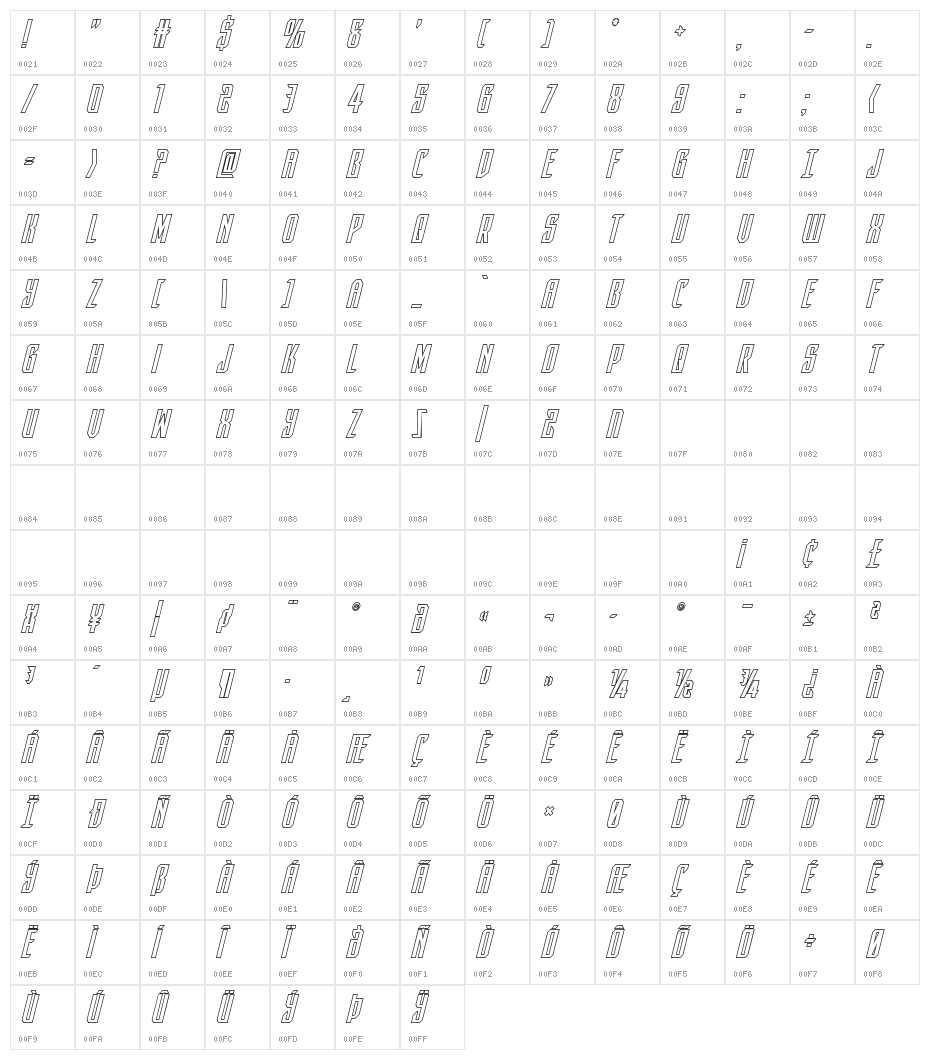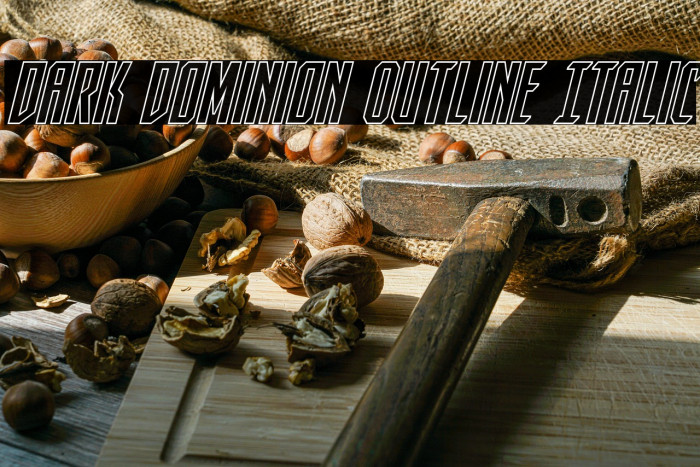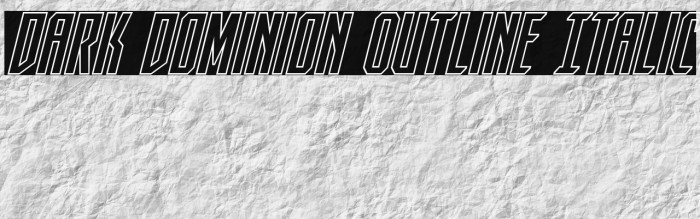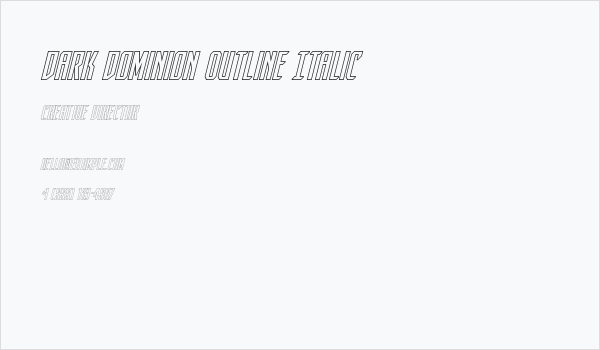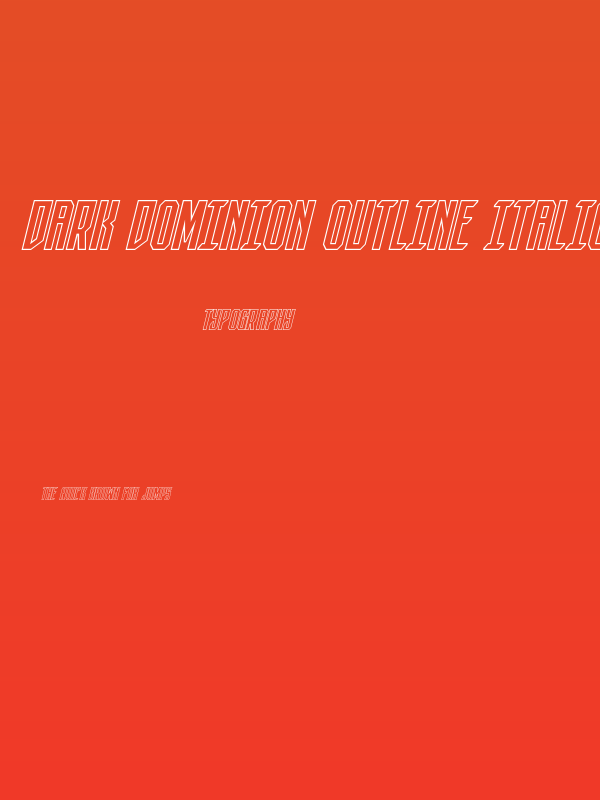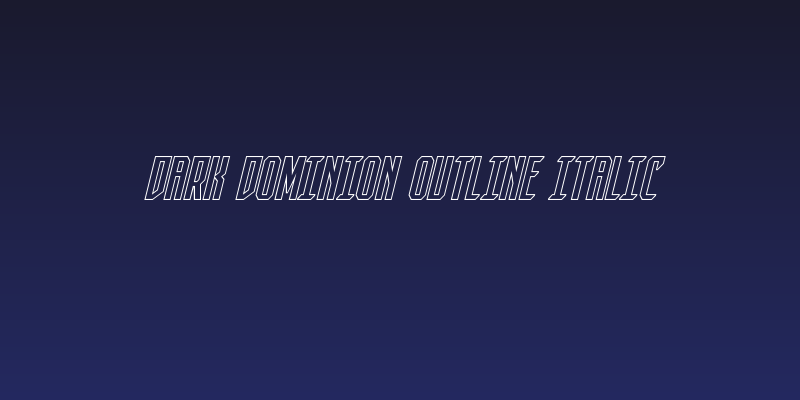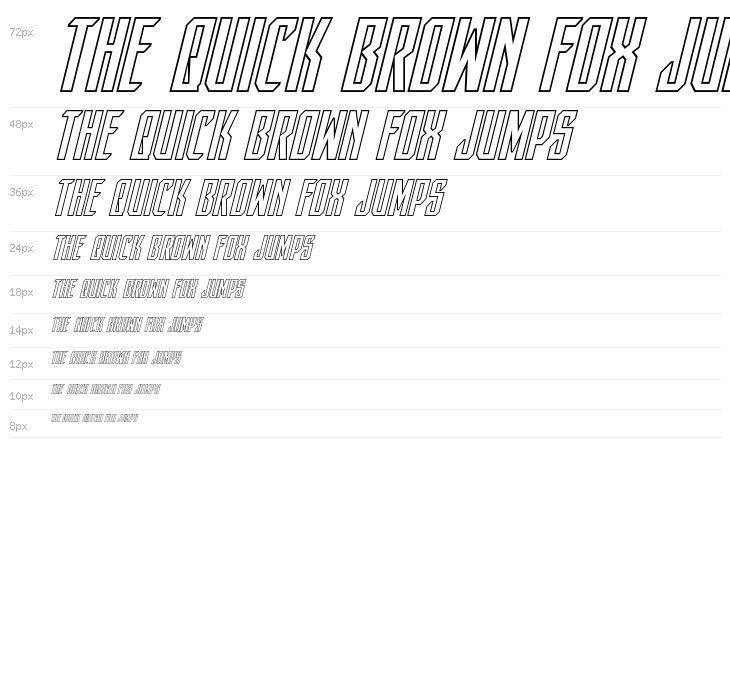
Dark Dominion Outline Italic Font
Dark Dominion Outline Italic Description
This font features a bold, outlined style with a distinct italic slant, giving it a dynamic and energetic appearance. The characters are angular and geometric, with sharp edges and a consistent stroke width that maintains clarity even in its outlined form. The uppercase and lowercase letters are designed with a uniform height, contributing to a cohesive look. The numerals and special characters follow the same stylistic approach, ensuring a harmonious overall design. This font's unique outline and italicized form make it stand out, suitable for attention-grabbing headlines or creative projects.